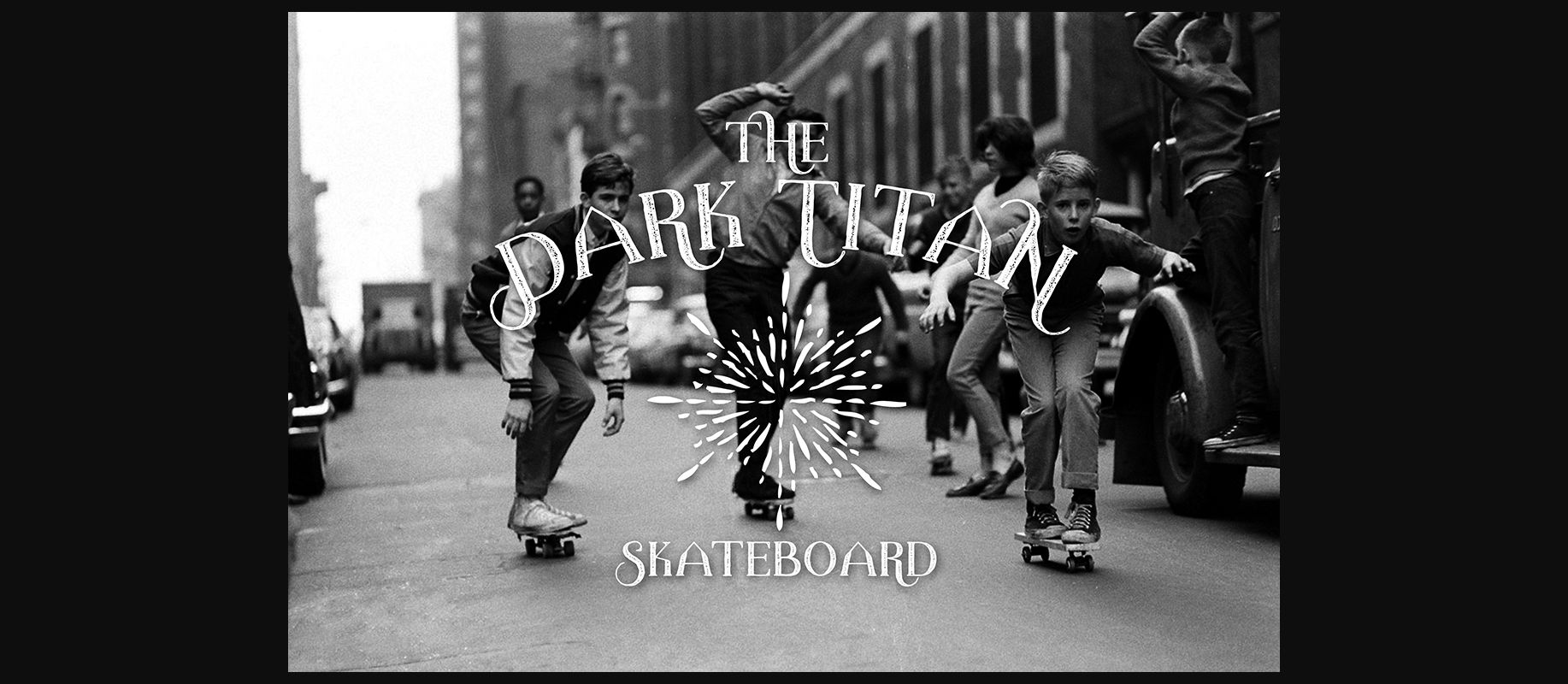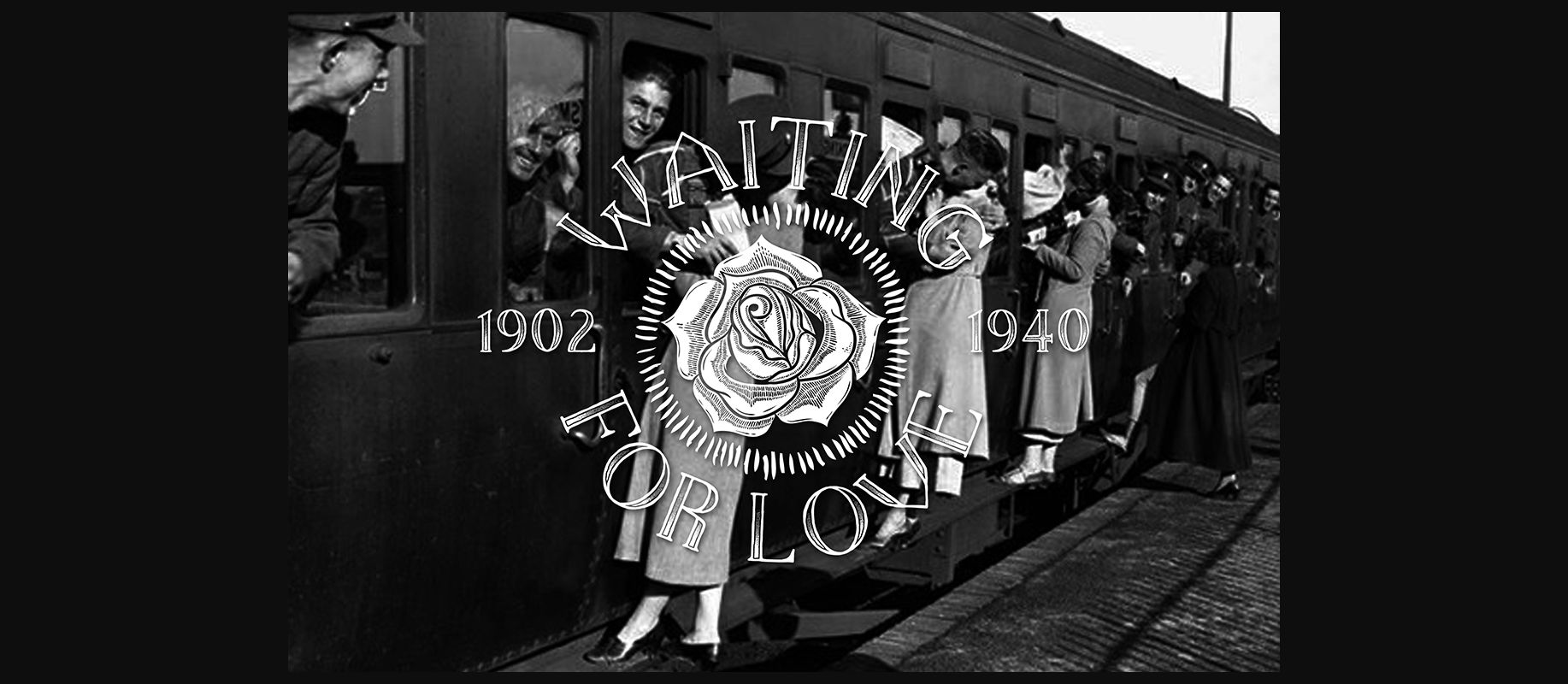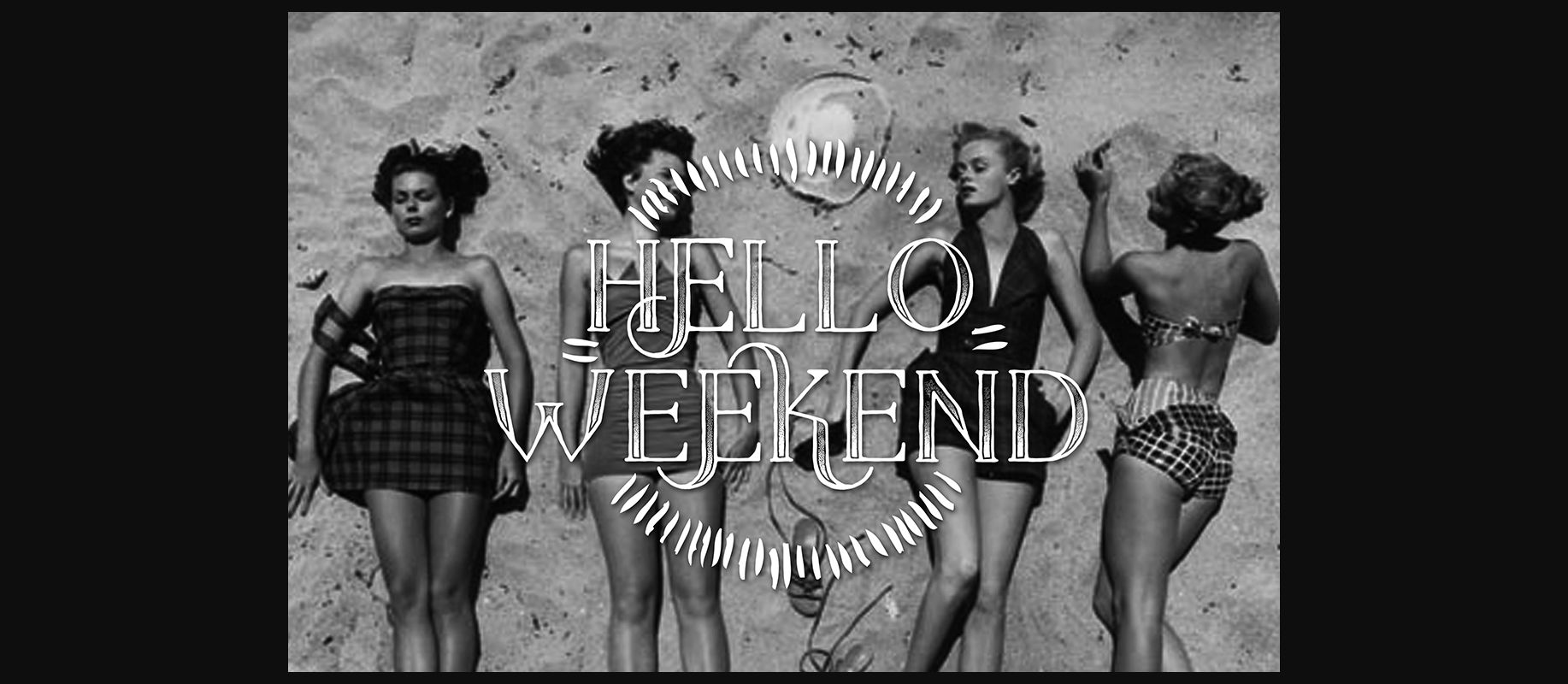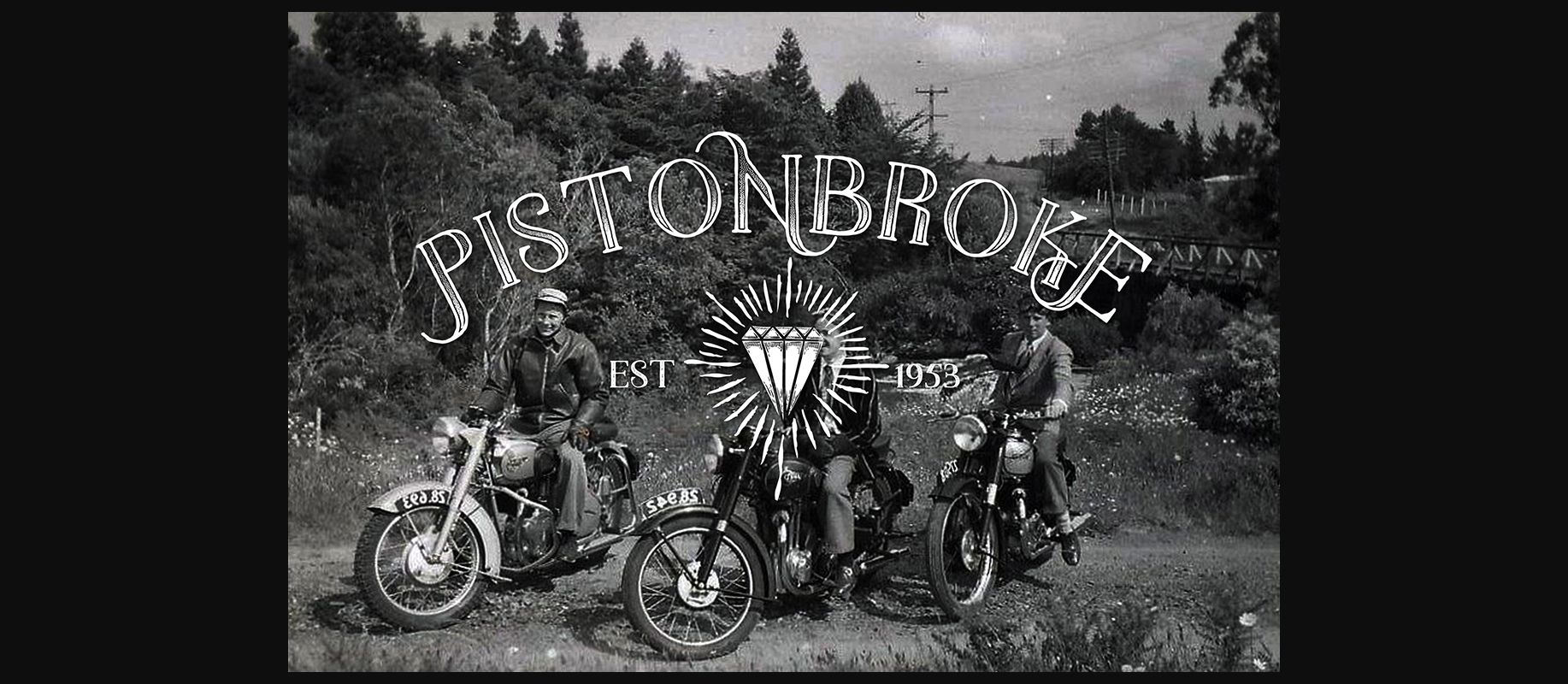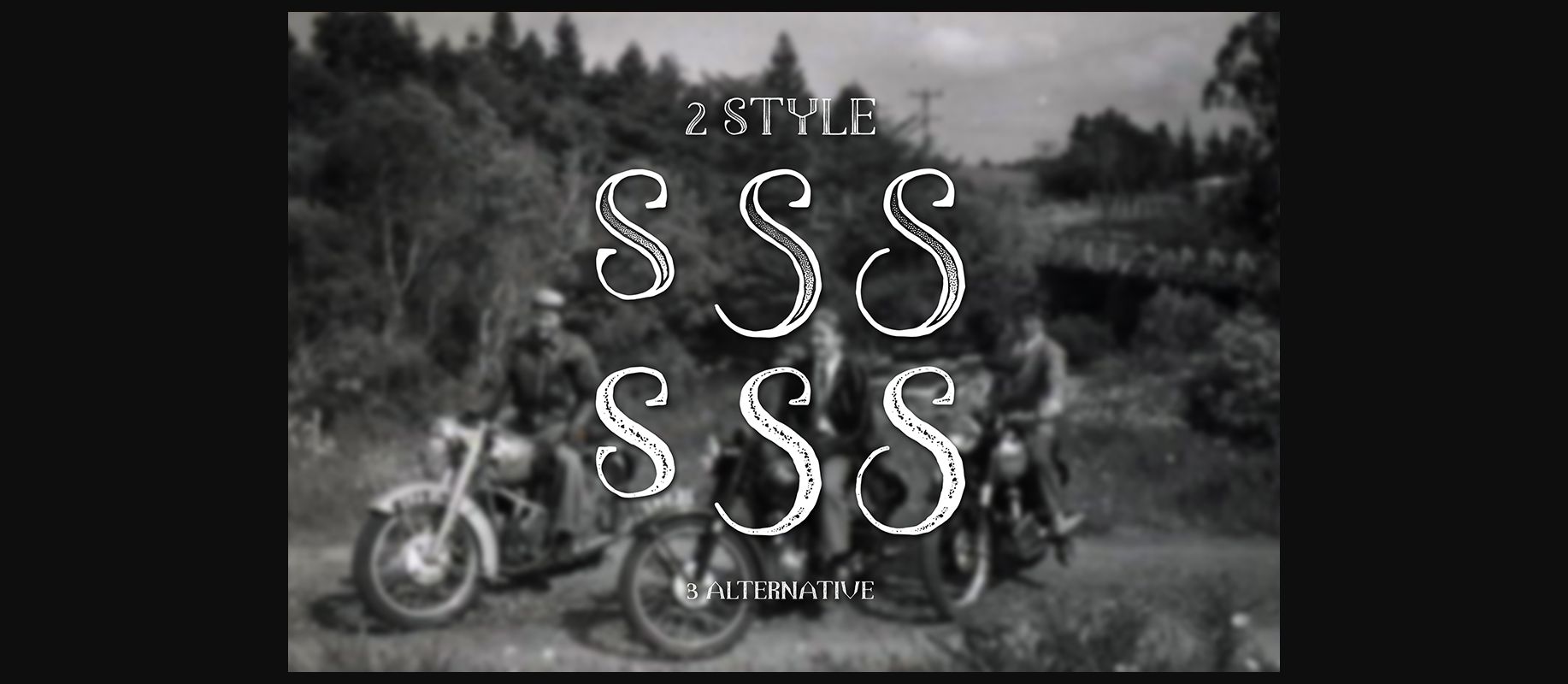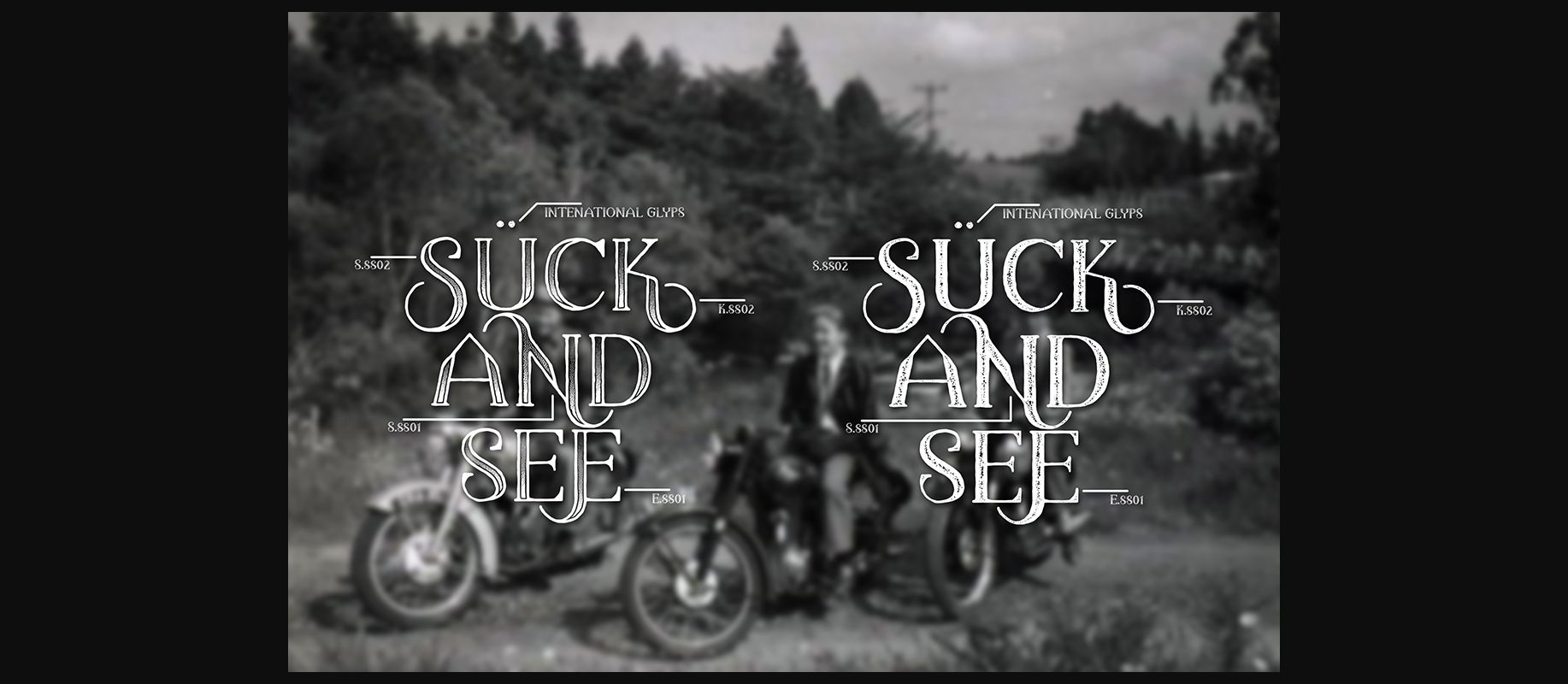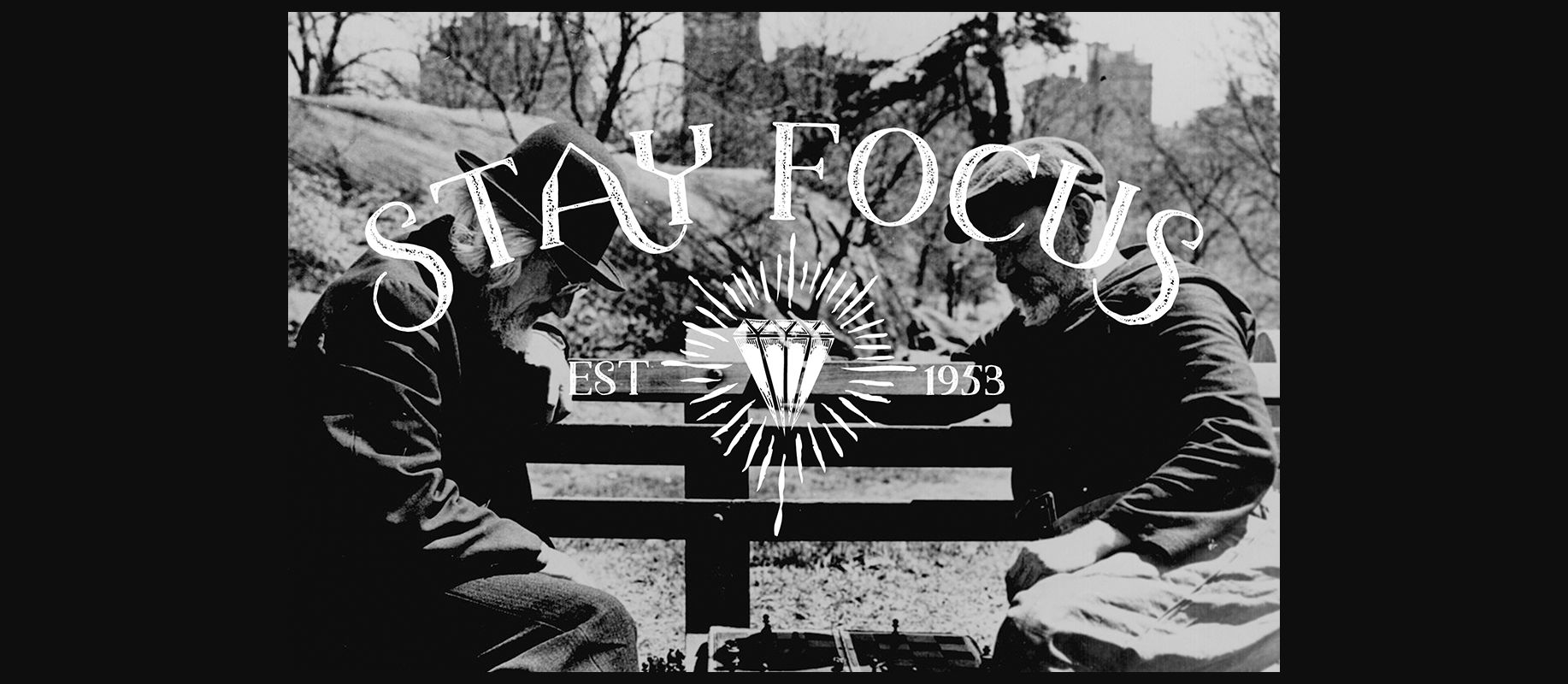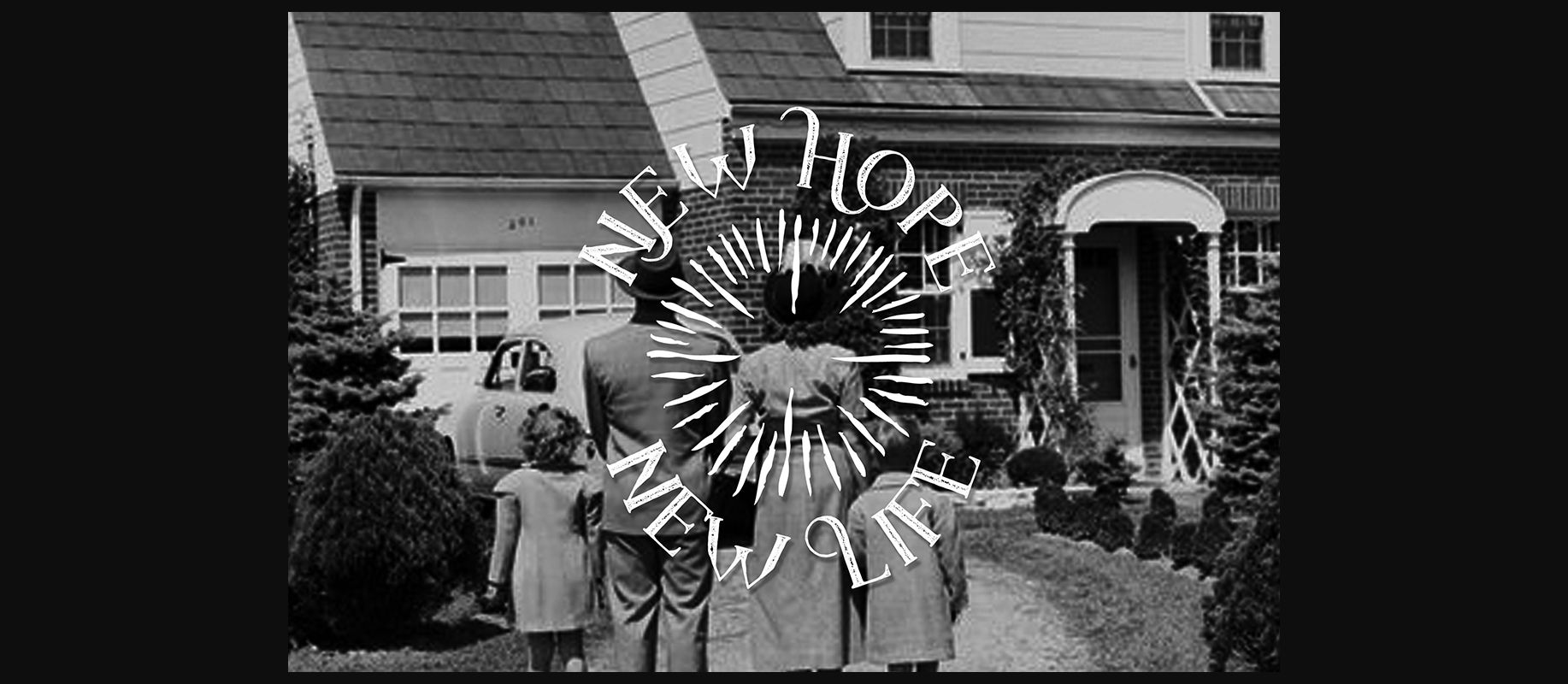
HomeDecorative FontsThe Dark Titan Font Decorative Fonts The Dark Titan Font FacebookXPinterestWhatsApp 1 of 8 About The Dark Titan Font The Dark Titan is a classic handwritten font. Comes in 2 variations: The Dark Titan Classic The Dark Titan Vintage DOWNLOAD NOW People also explored Old Friend Font Gladden Font Good Morning Font Louise Ann Font Beaversa Font Lazy Bone Font Khillua Zoldyck Font Streetlight Script Lovely Blooms Font 302 0 TagsThe Dark Titan Font Previous articleAwakening FontNext articleThe Black Box Font LEAVE A REPLY Cancel reply Comment: Please enter your comment! Name:* Please enter your name here Email:* You have entered an incorrect email address! Please enter your email address here Website: Save my name, email, and website in this browser for the next time I comment. Personal Use Free Pelmeshka Personal Use Free Read more about this font Kinda Sweet Personal Use Free Read more about this font Evensong Hollow Personal Use Free Read more about this font Lazy Sunday Personal Use Free Read more about this font BLOG Modern Sans-Serif Fonts That Brands Love in 2025 In 2025, modern sans-serif fonts remain a top choice for brands looking to project clarity, professionalism, and... How to Install and Use Fonts on Windows, macOS, and Web Projects Fonts That Capture the Spirit of New York City Where to Buy American Fonts Online in 2024